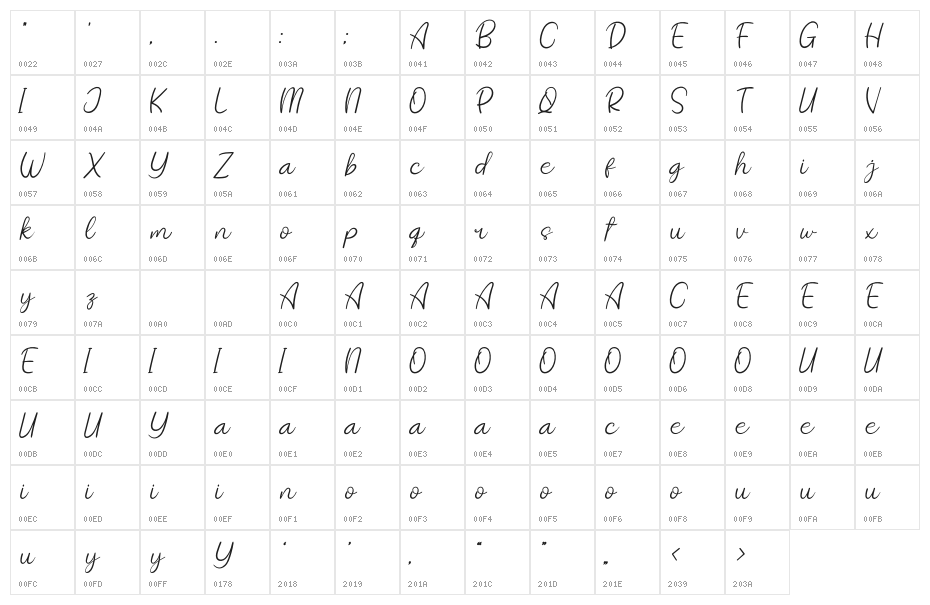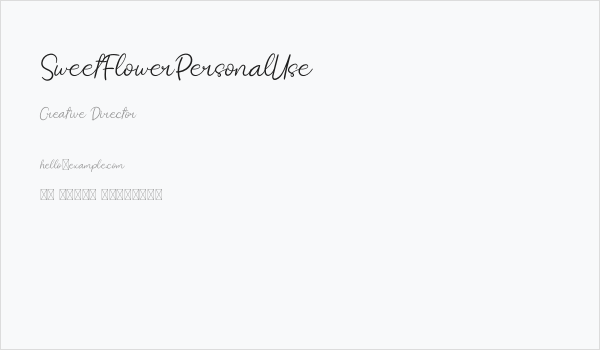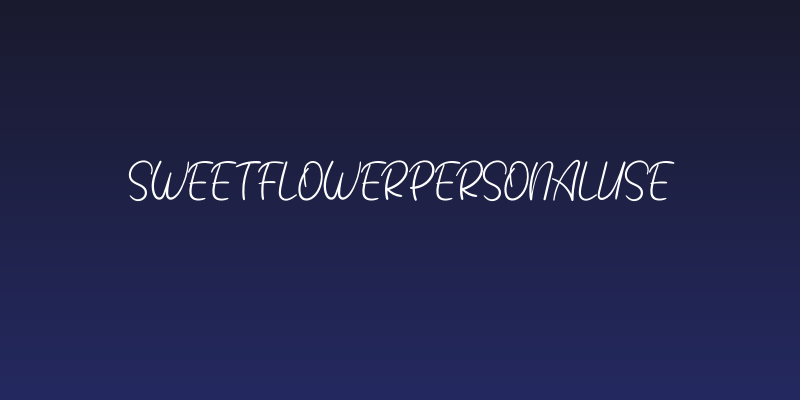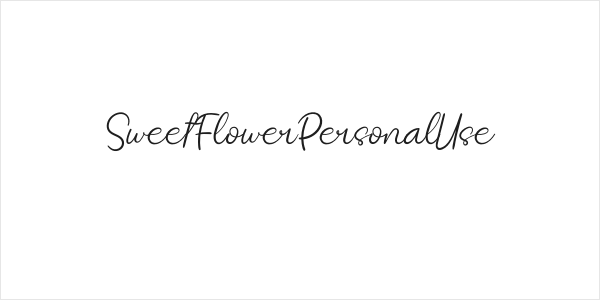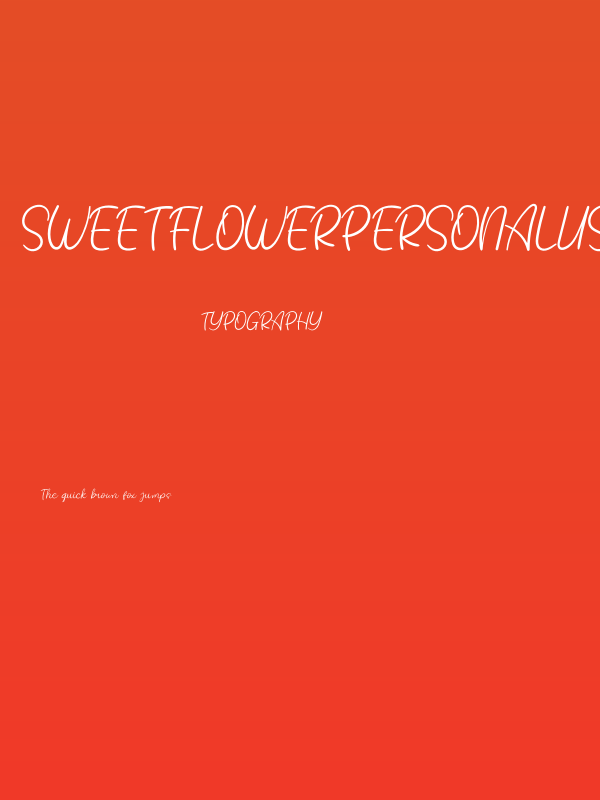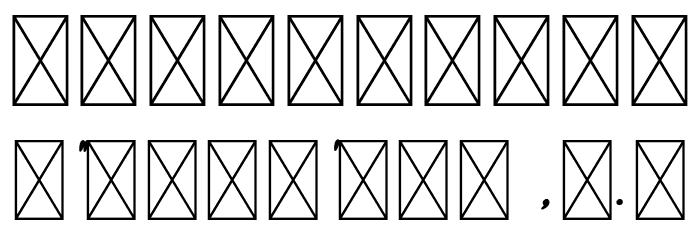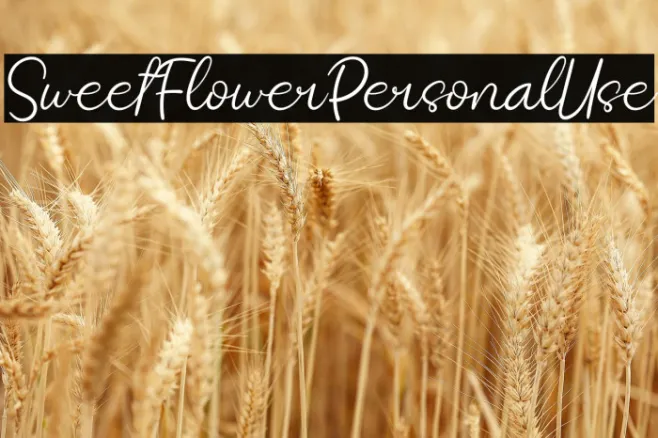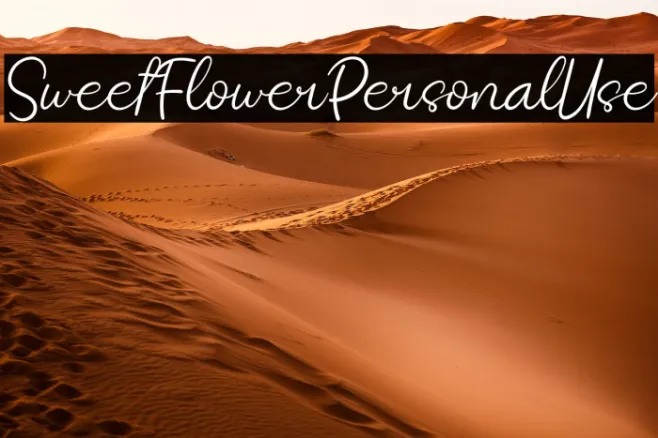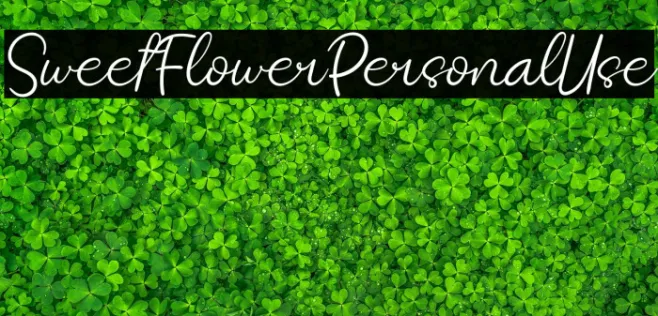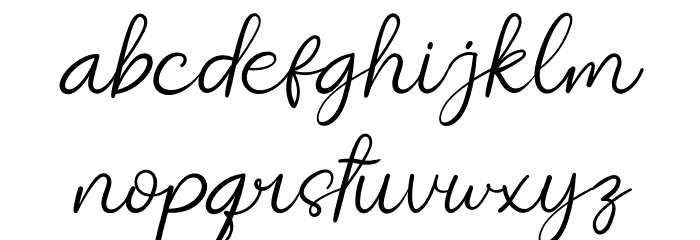
SweetFlowerPersonalUse Font
SweetFlowerPersonalUse Description
This font exudes a playful and elegant handwritten style, characterized by its flowing, cursive letterforms. The uppercase letters are tall and slightly slanted, adding a sense of movement and grace. The lowercase letters maintain a consistent flow, with smooth connections between each character, enhancing the script-like appearance. The overall design is clean and legible, making it suitable for personal and creative projects. The font's charm lies in its ability to convey a sense of warmth and friendliness, making it ideal for invitations, greeting cards, and personal branding.
| Use Case | Logos, Headlines, Personal projects |
| Proposed Projects | Ideal for invitations, greeting cards, personal branding, and creative projects. |